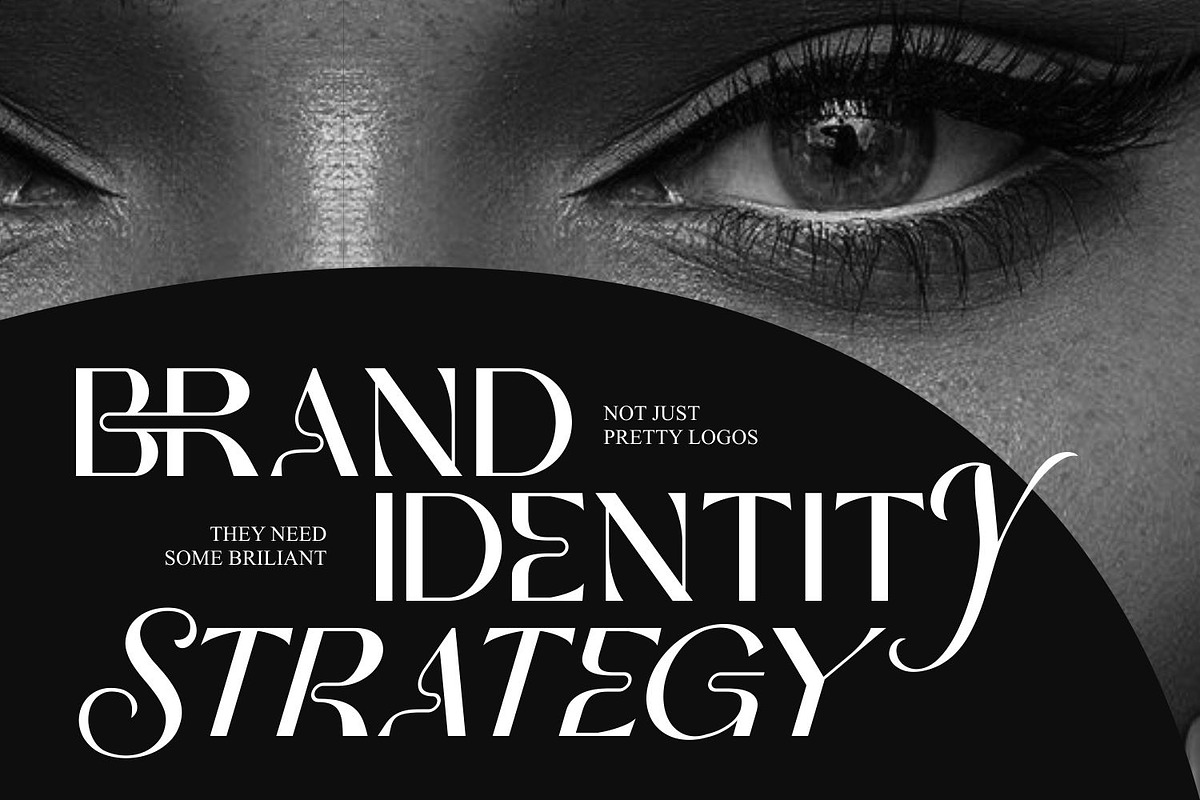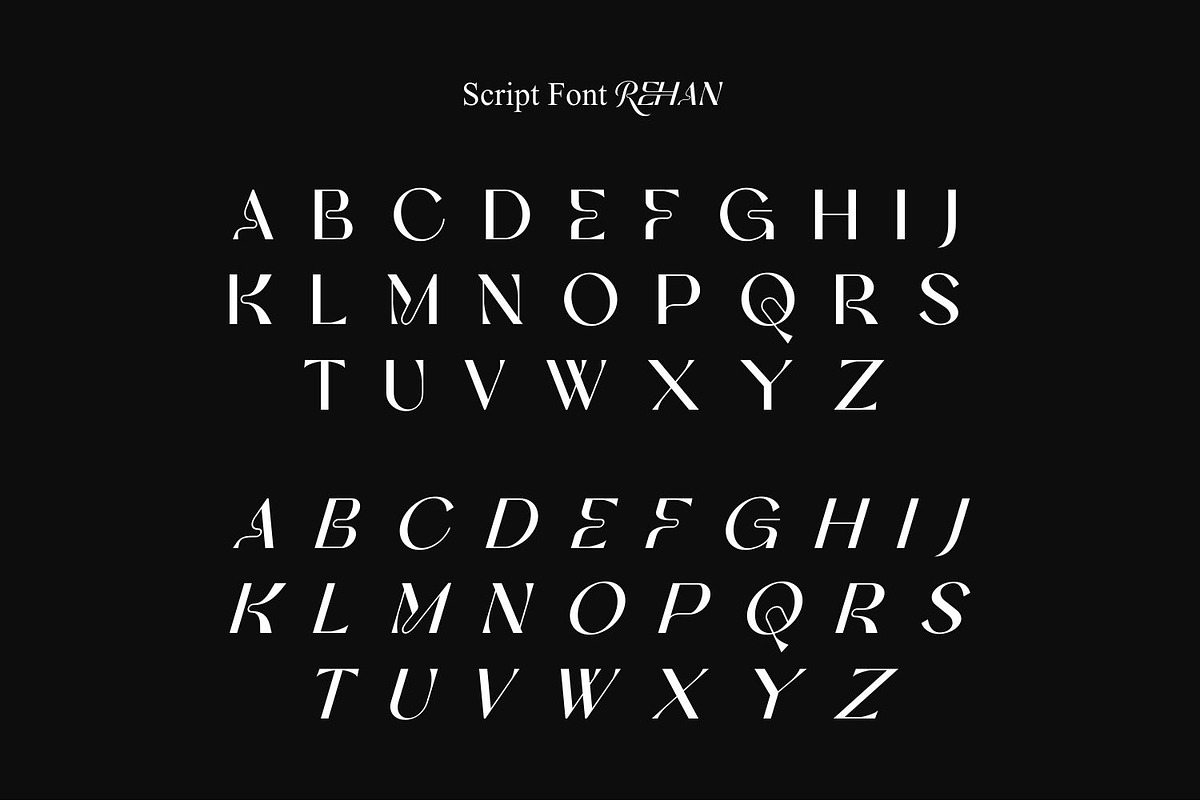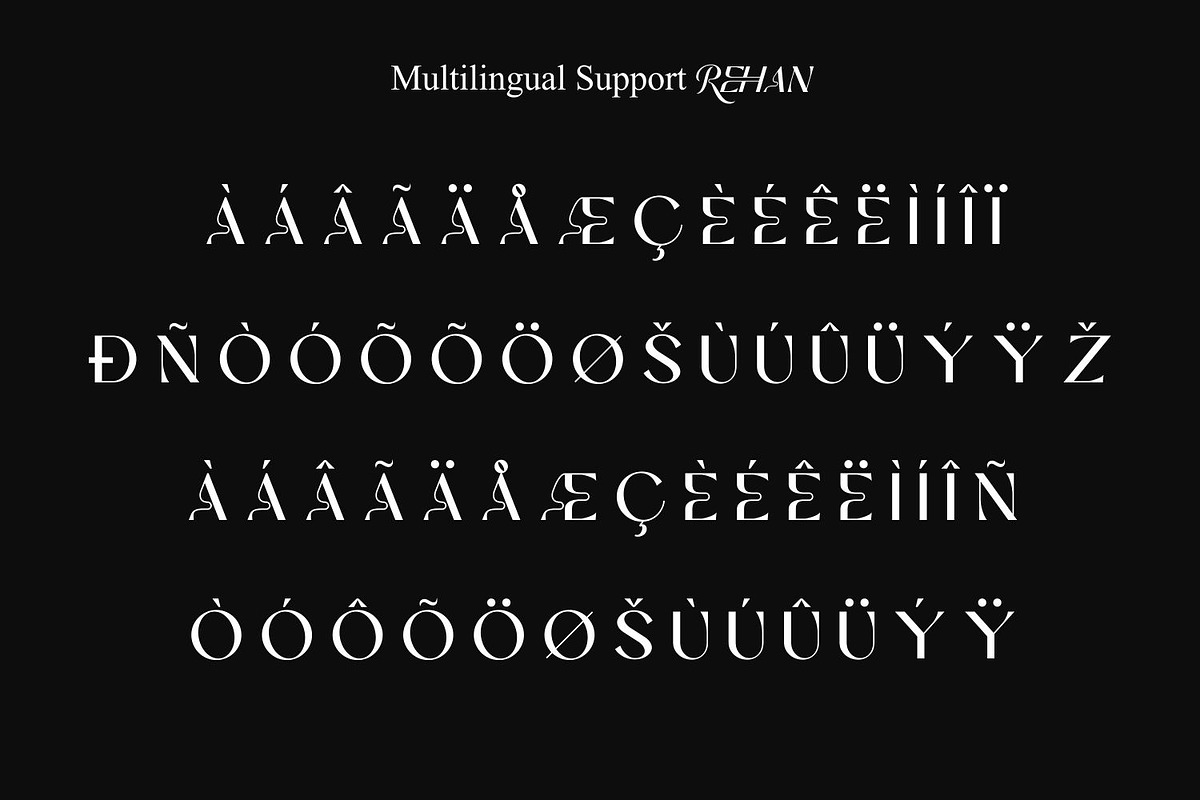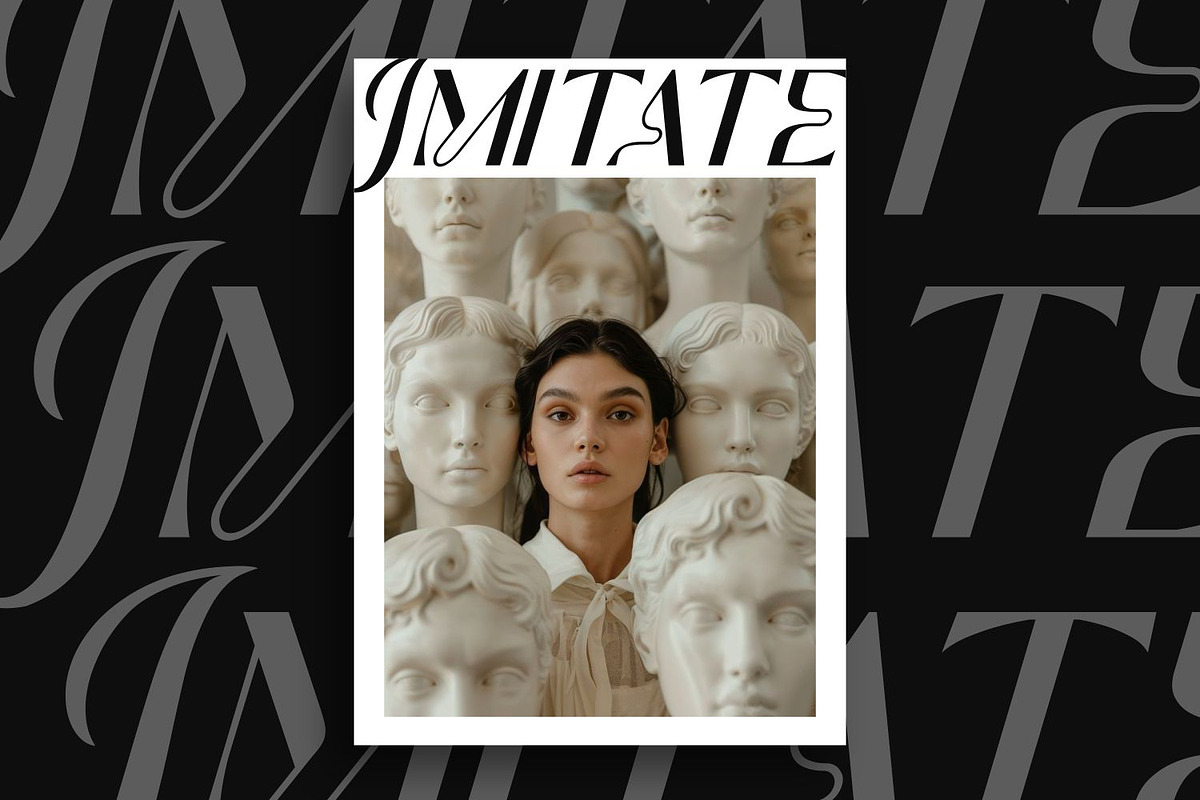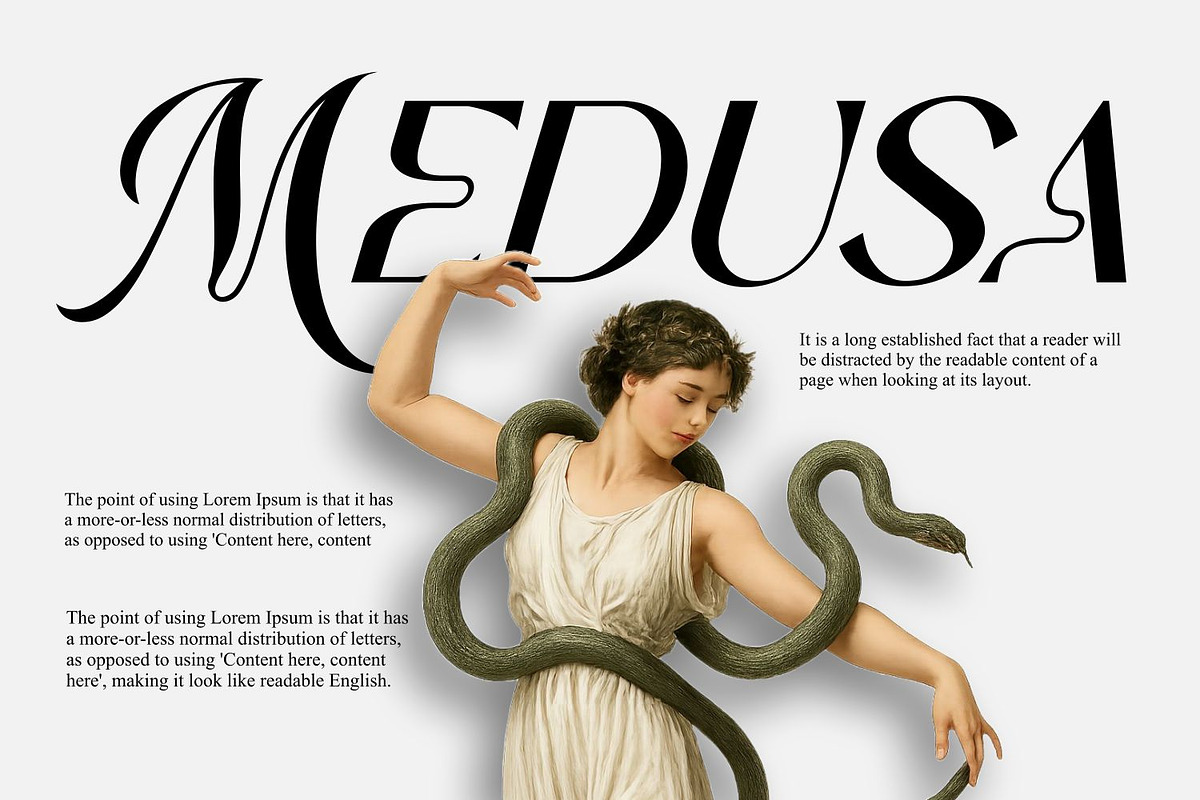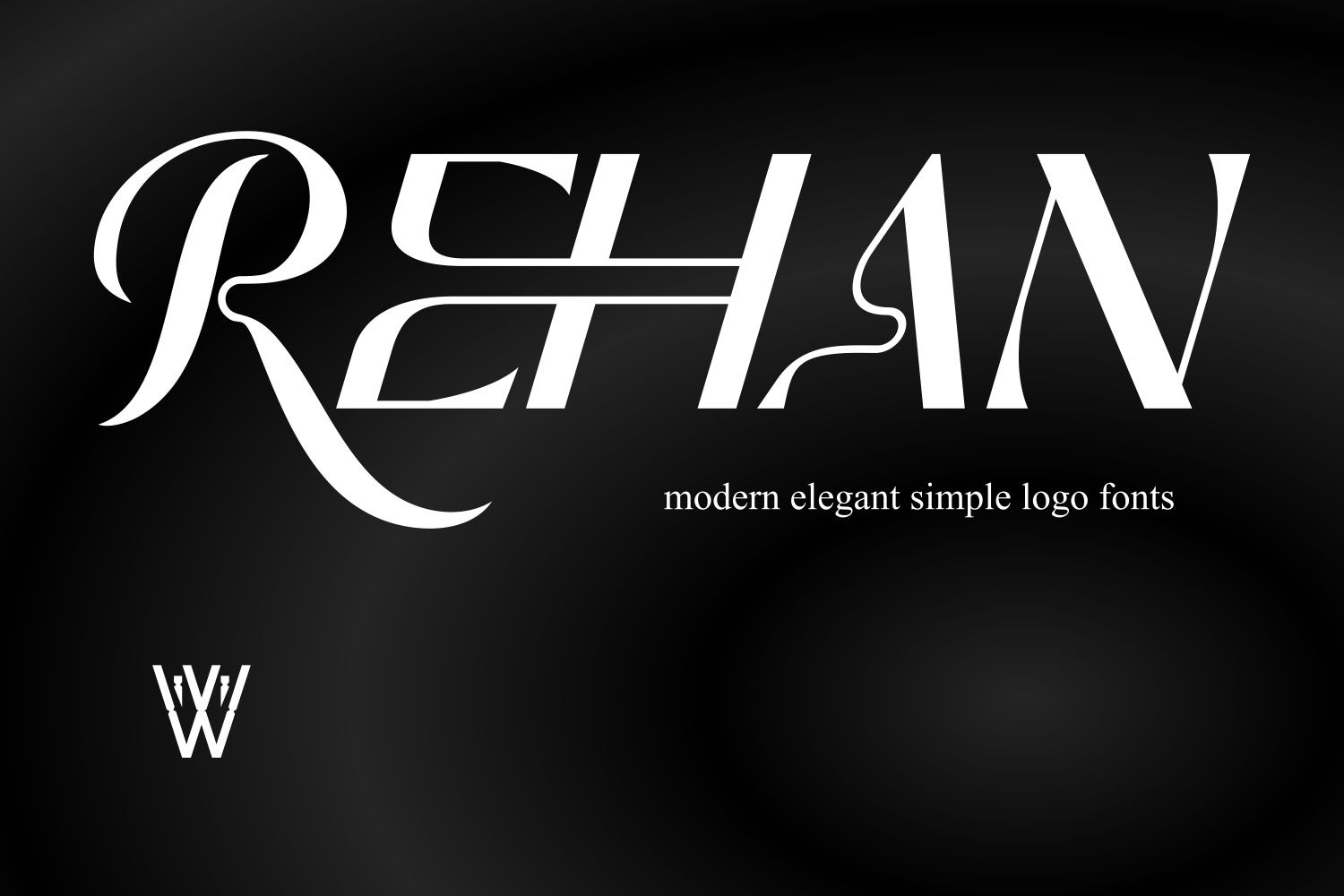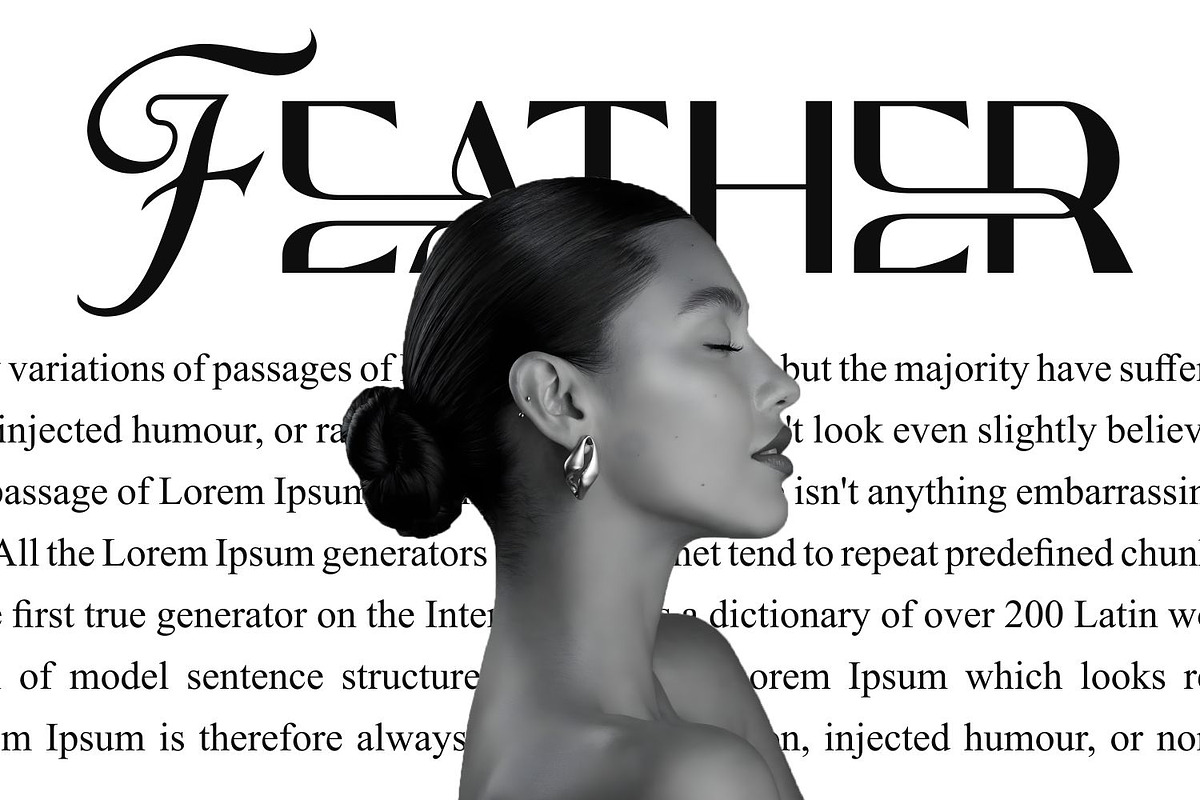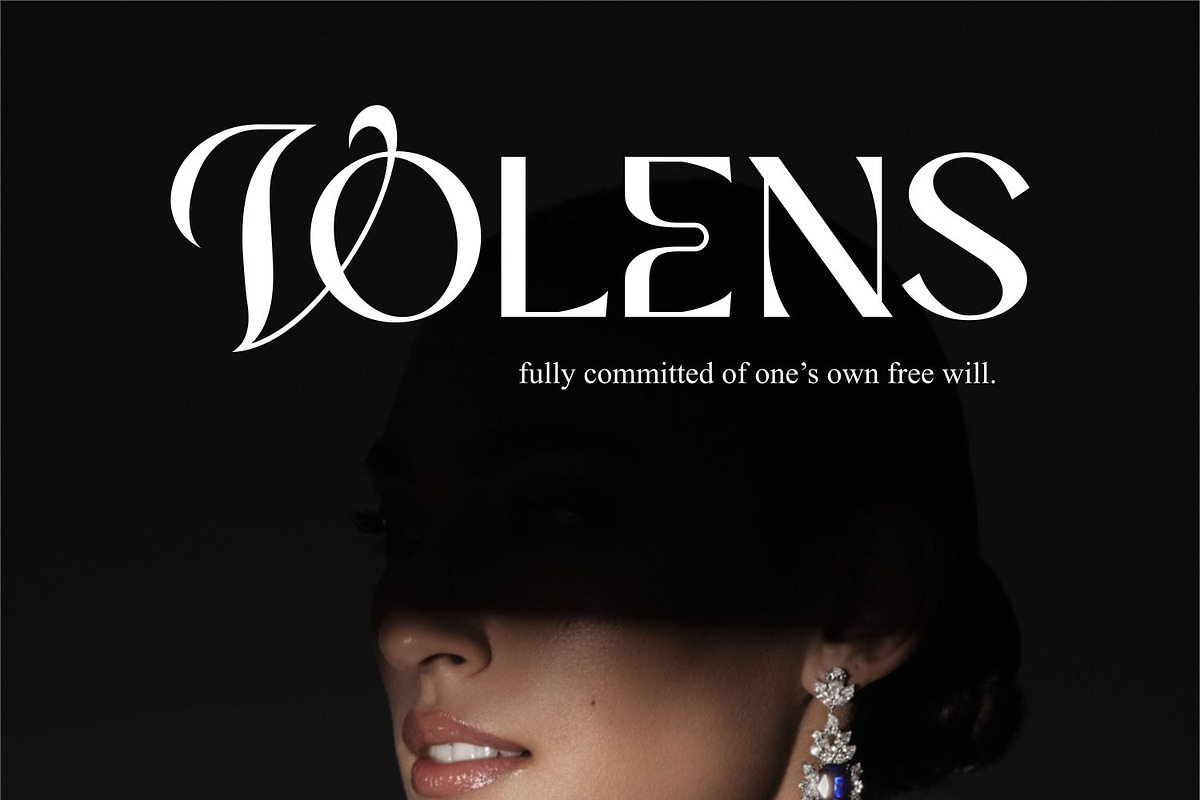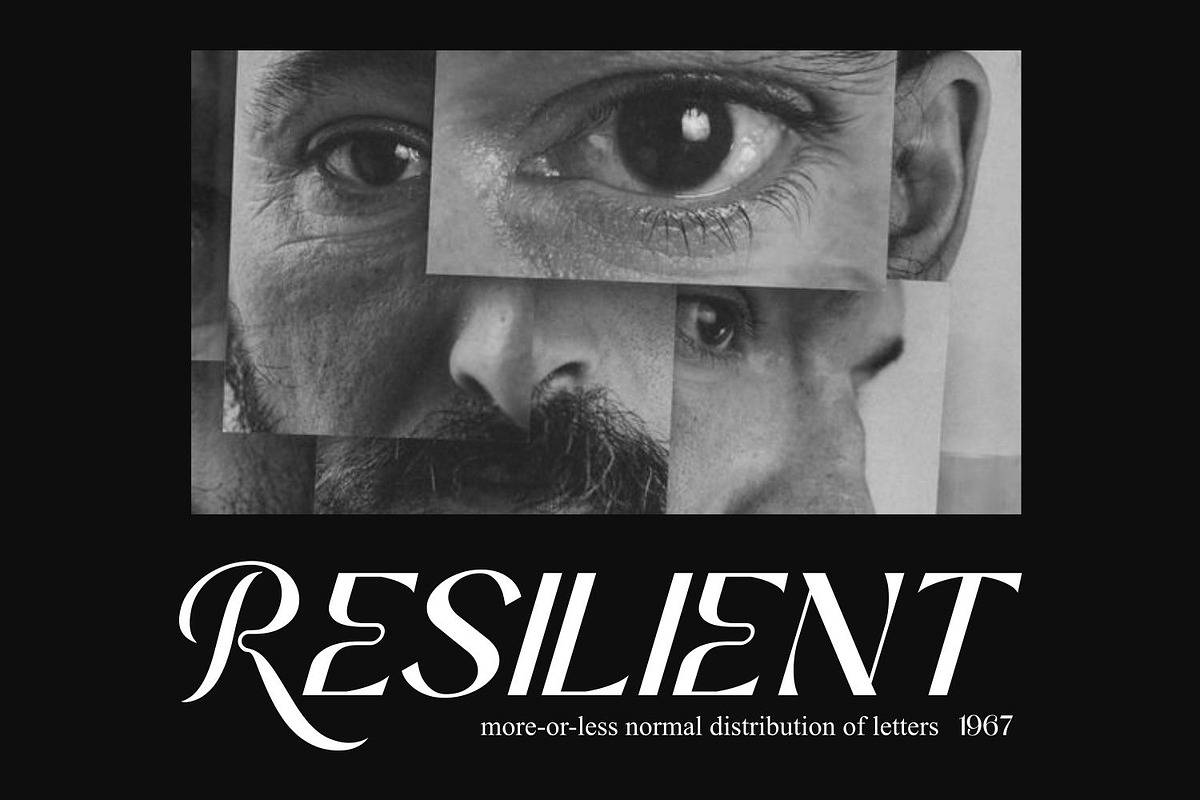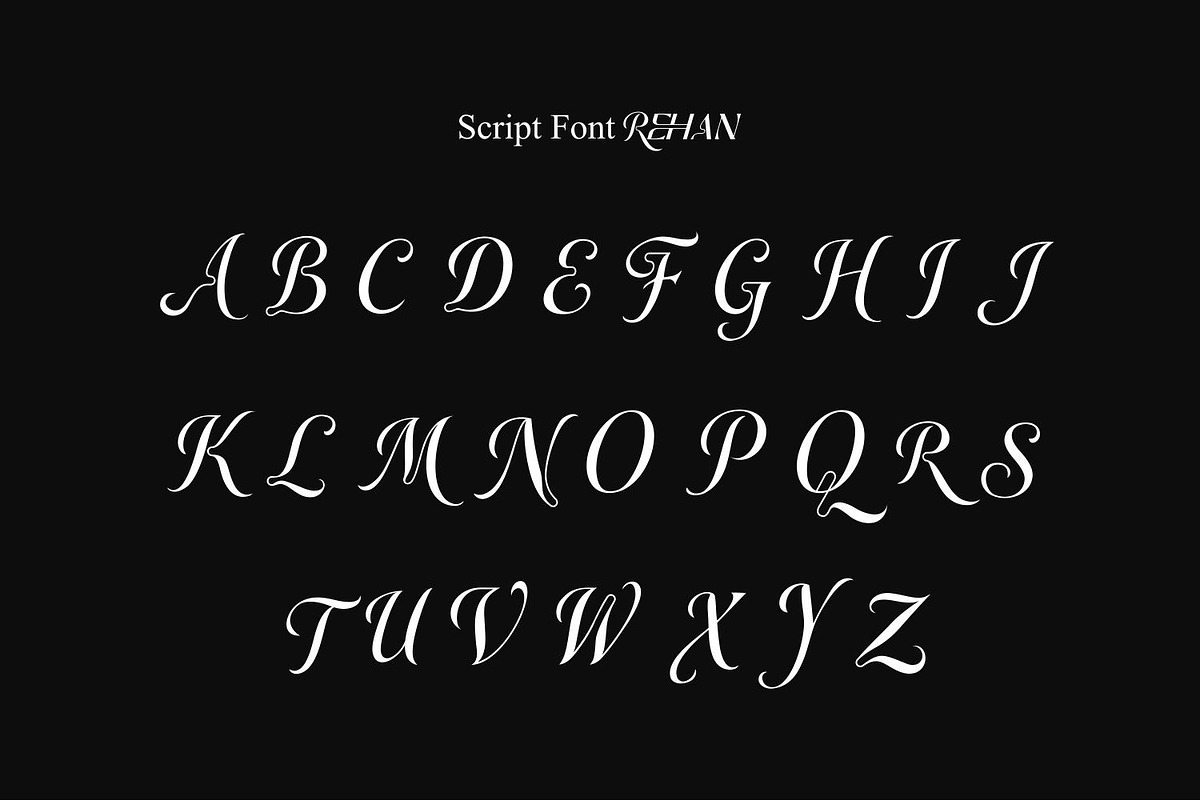
REHAN Elegant Font duo Sans Script
Rehan is a modern elegant serif font crafted for designers who seek a perfect balance between minimalism and artistic expression. With its unique letterforms, smooth curves, and distinctive ligatures, Rehan delivers a refined and luxurious visual identity for any project.
This font stands out with its bold yet graceful structure, making it ideal for high-end branding, logo design, editorial layouts, and fashion-forward visuals. The subtle decorative strokes and custom alternates bring a fresh personality while maintaining a clean and professional look.
Whether you're building a premium brand, designing a modern logo, or creating eye-catching social media content, Rehan gives your typography a strong, memorable presence.
Luxury branding & logos
Editorial & magazine design
Fashion & beauty projects
Social media content
Packaging & product design
Ligatures & Alternates
Rehan is not just a font — it’s a statement of elegance, clarity, and modern sophistication.